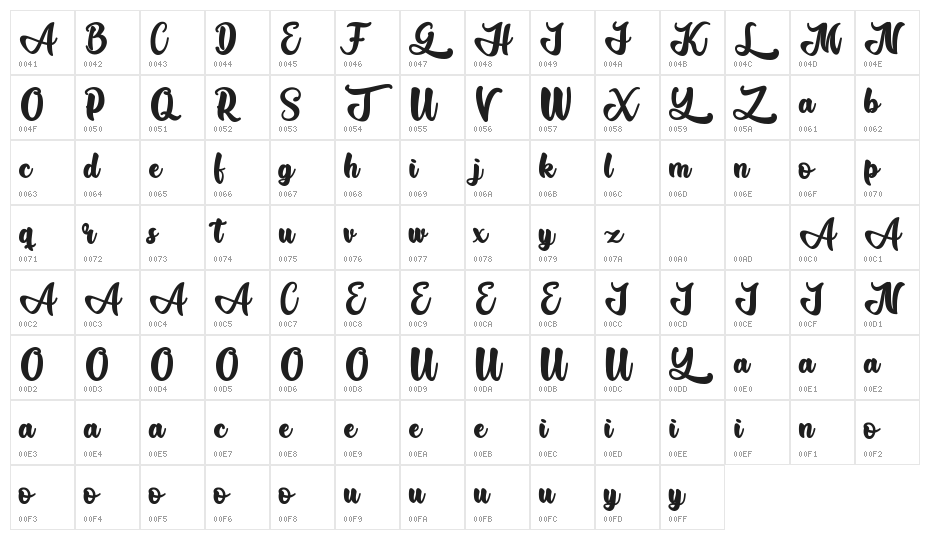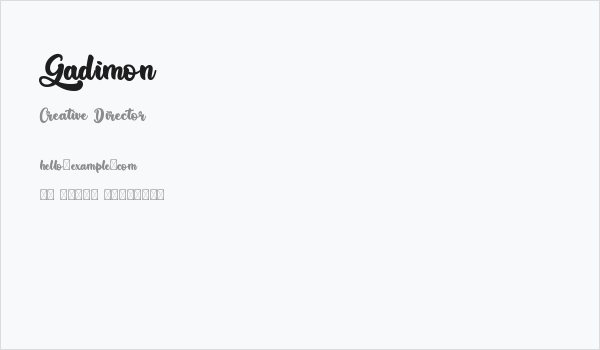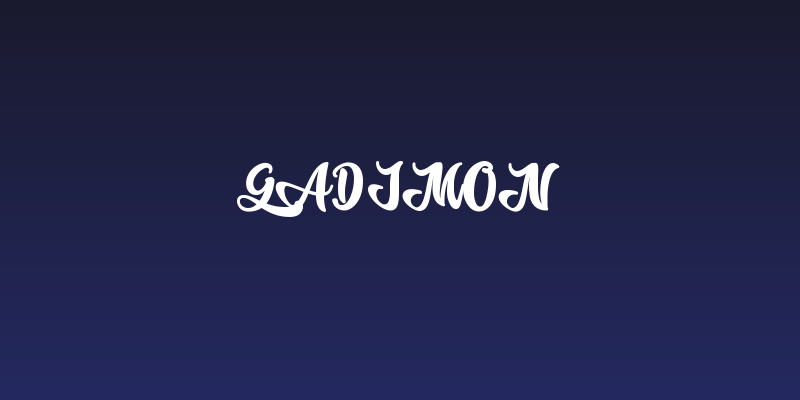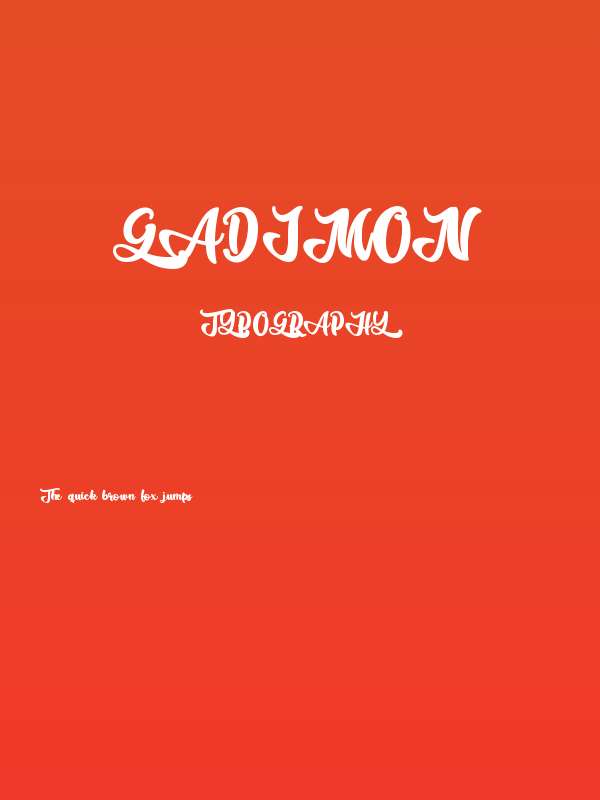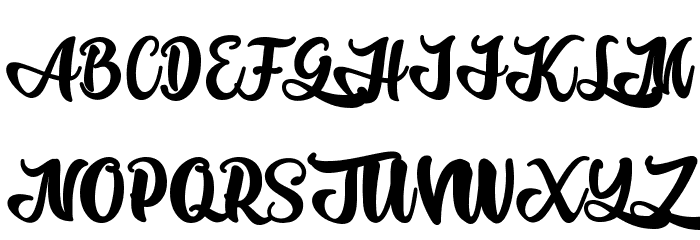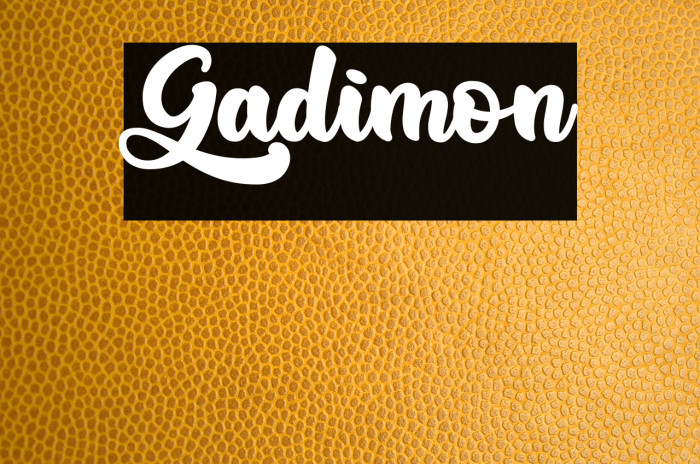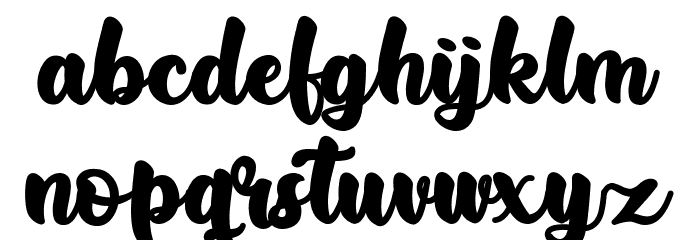
Gadimon Font
Gadimon Description
This font features a bold, flowing script style with a modern twist. The characters are interconnected, creating a seamless and elegant appearance. The uppercase letters are ornate with exaggerated loops and curves, while the lowercase letters maintain a consistent flow, enhancing readability. The font's playful yet sophisticated design makes it suitable for a variety of creative projects. The thick strokes and high contrast between thick and thin lines give it a dynamic and eye-catching look. This font is perfect for adding a personal touch to any design.
| Proposed Projects | Ideal for wedding invitations, branding, logo design, and social media graphics. |